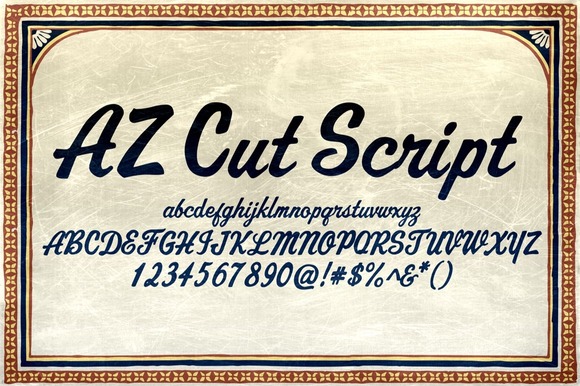
HomeScript FontsAZ Cut Script Fonts AZ Cut Script Font FacebookXPinterestWhatsApp About AZ Cut Script Font The AZ Cut Script has a clean hand drawn look with a bit of a calligraphic feeling to it. DOWNLOAD NOW People also explored Herradura Font Family Font Glade Font Notebook Font Kellyna Font Talliya Font Farmhouse Font Barlovy Font Tattoo Font Monogram Clara Font 438 0 TagsAZ Cut Script Font Previous articleAZ Dramamine FontNext articleAZ Cruisin Font LEAVE A REPLY Cancel reply Comment: Please enter your comment! Name:* Please enter your name here Email:* You have entered an incorrect email address! Please enter your email address here Website: Save my name, email, and website in this browser for the next time I comment. Personal Use Free Caramel Latte Personal Use Free Read more about this font Lovely Girl Personal Use Free Read more about this font Scarlove Personal Use Free Read more about this font BD Lofi Personal Use Free Read more about this font BLOG Elegant Wedding Invitation Fonts – Handwritten & Script Fonts Elegant Wedding Invitation Fonts Your wedding day is one of the most important moments of your life, and every detail matters—including your invitation design. Our... Using Fonts in Digital Marketing: Tips to Strengthen Your Brand Identity Free vs Paid Fonts: Why Investing in Premium Fonts Is Worth It Top 7 Google Fonts Alternatives for Faster and Privacy-Friendly Web Design (2025)